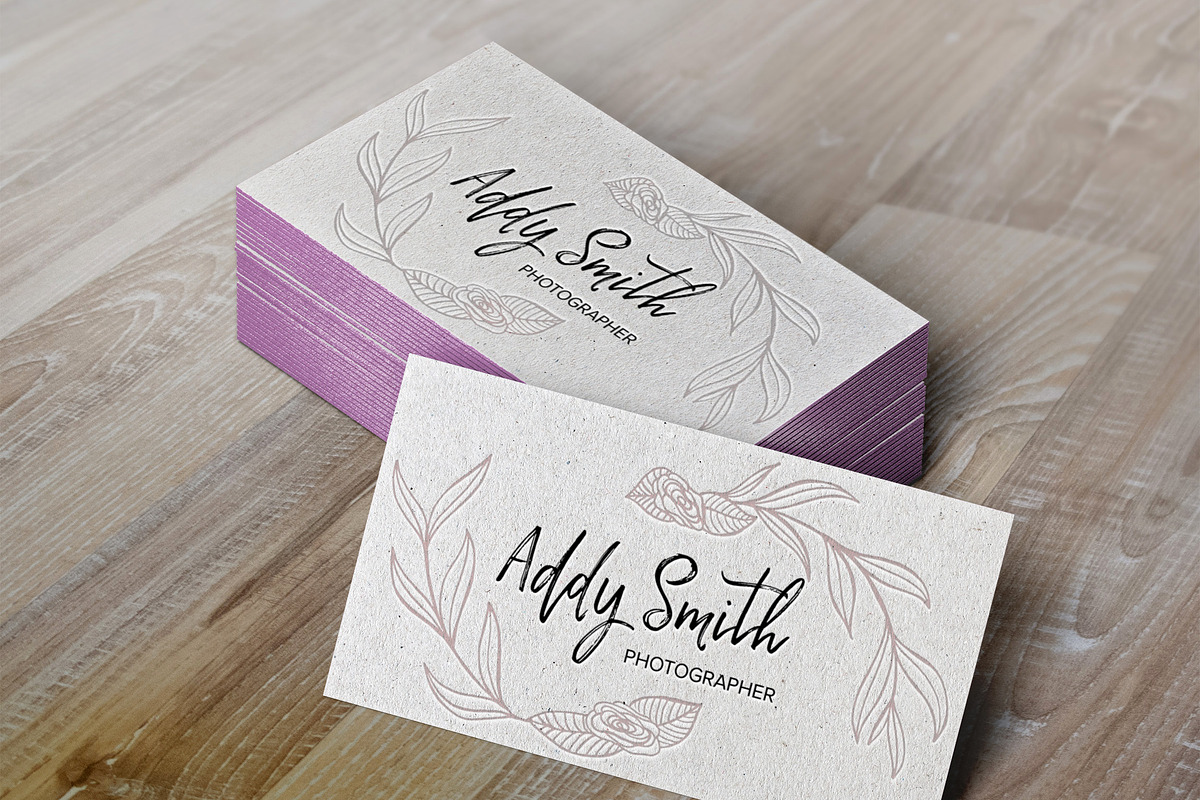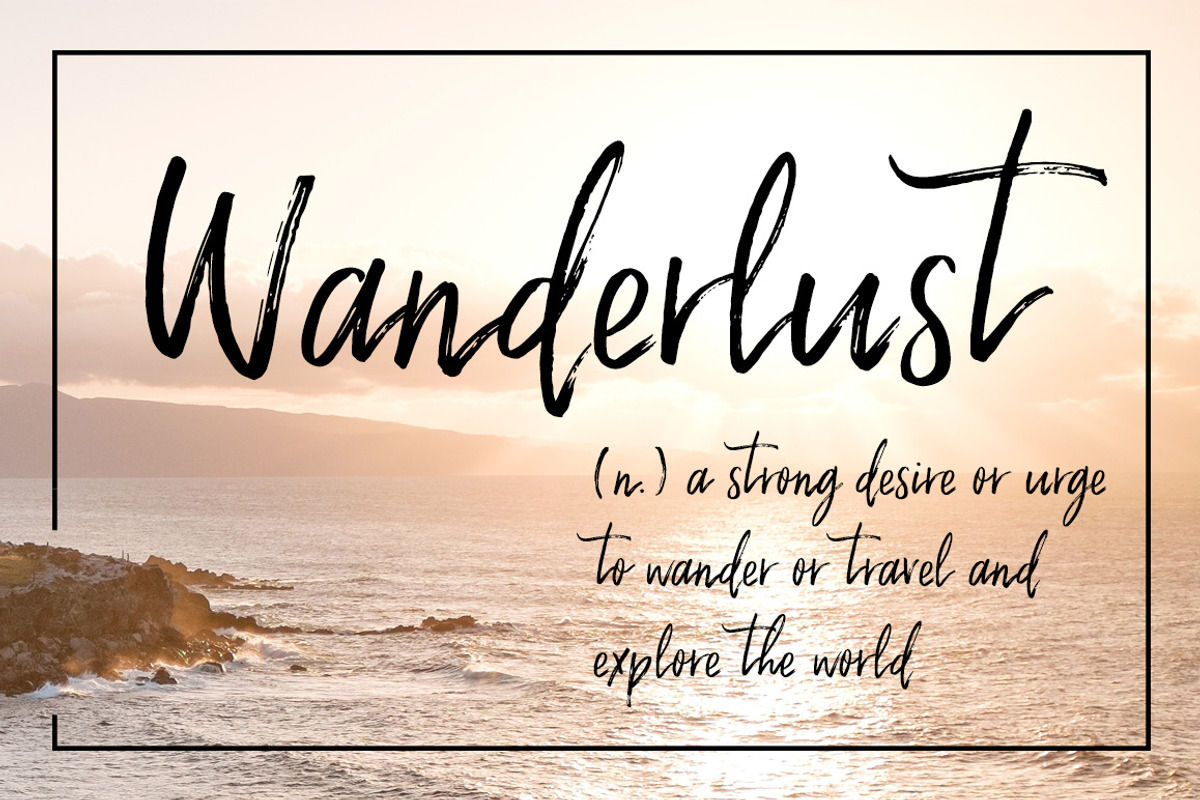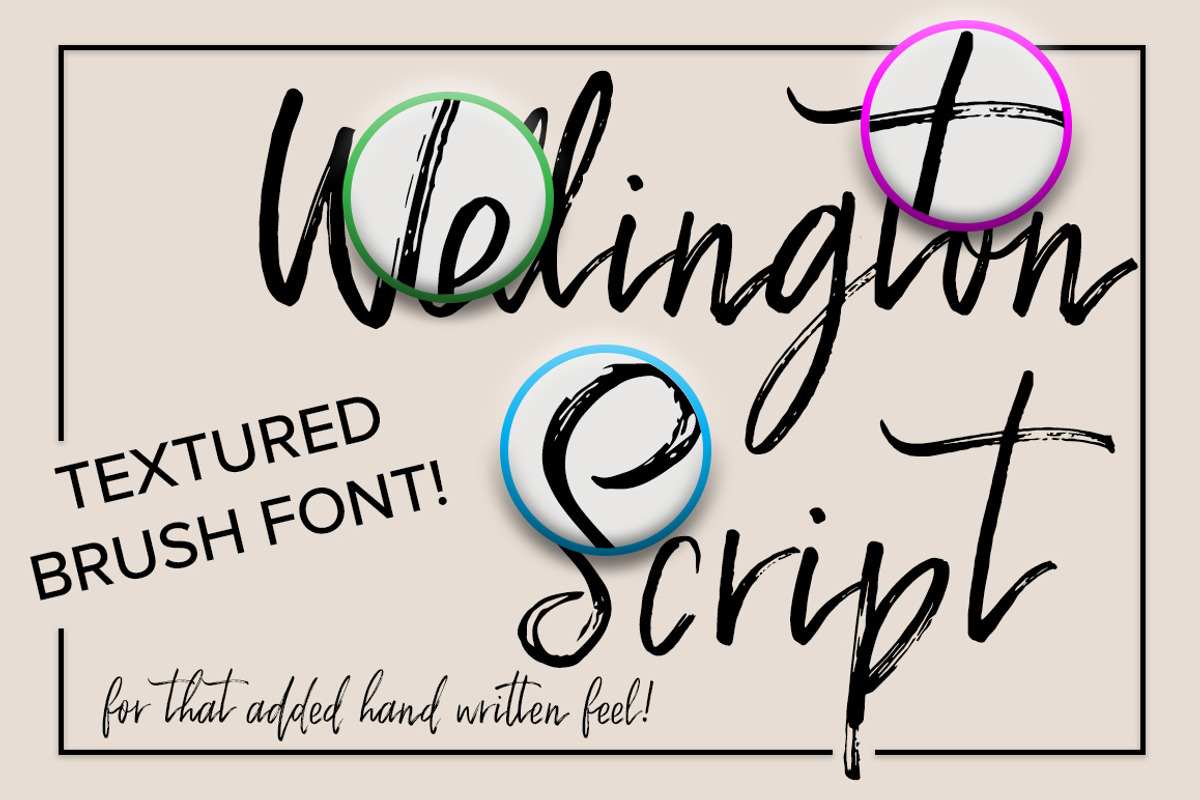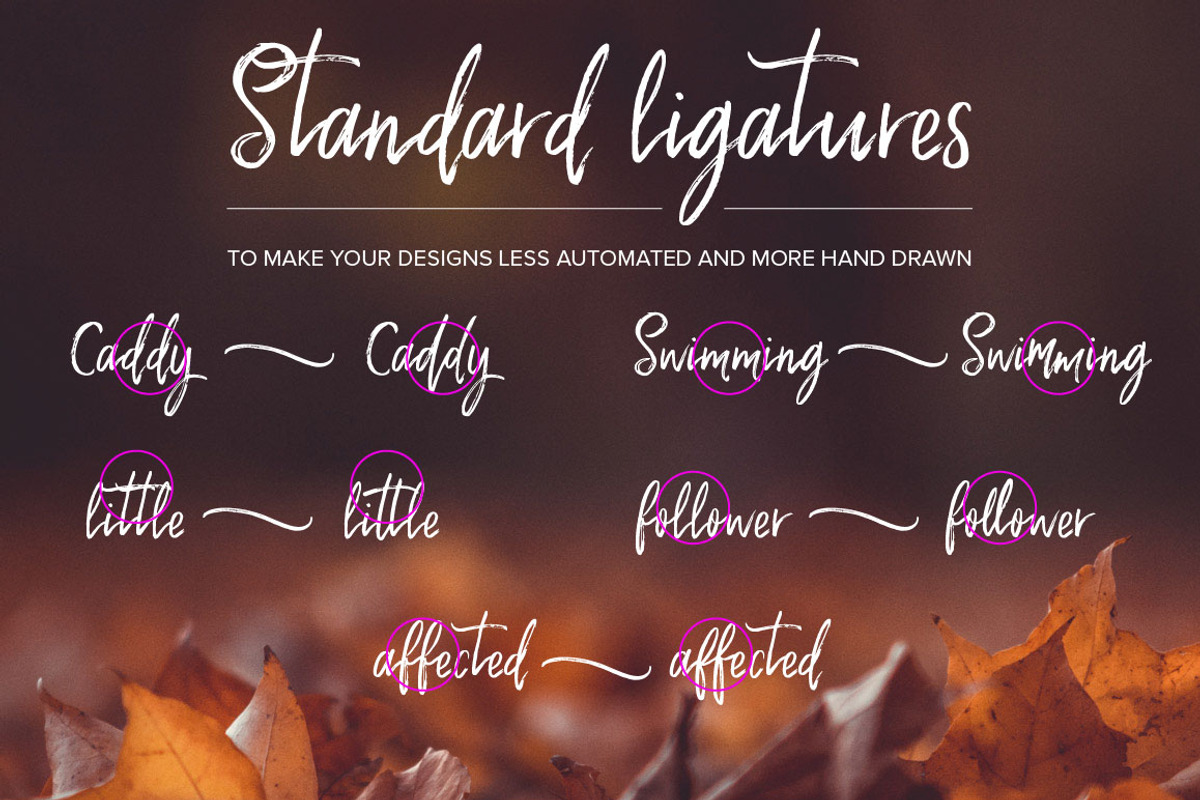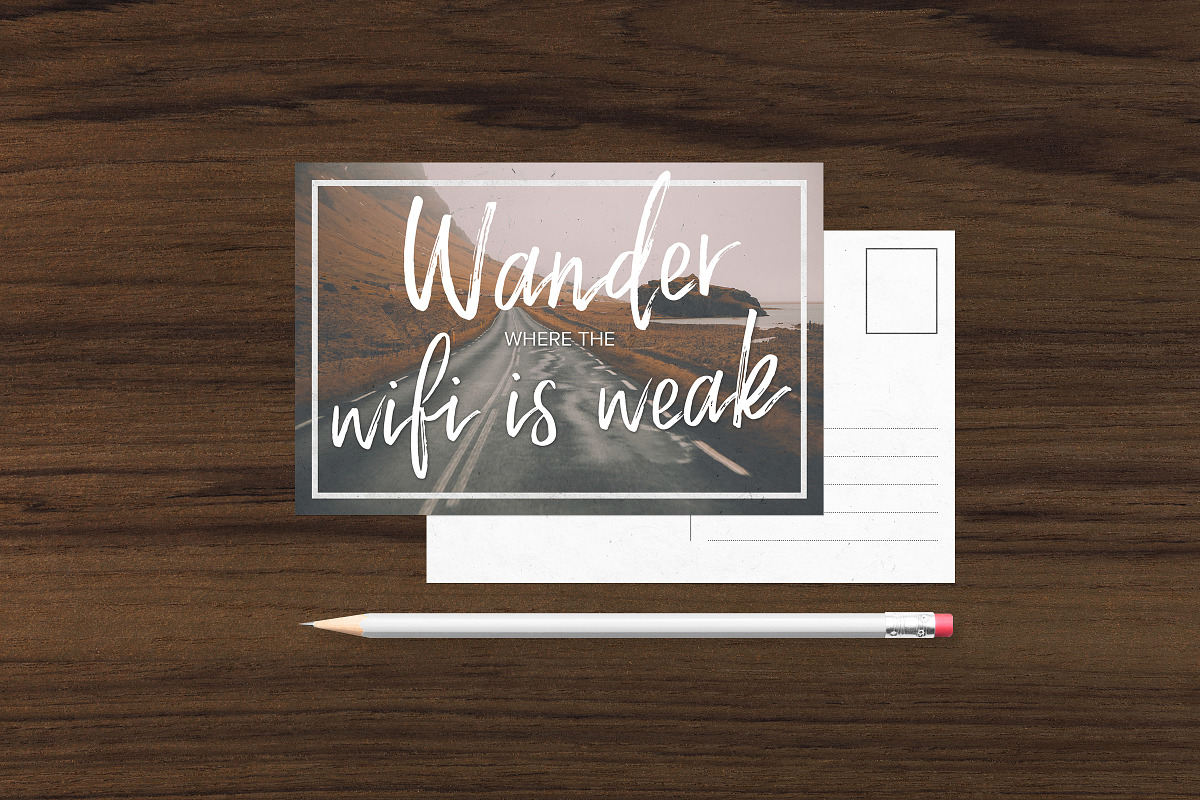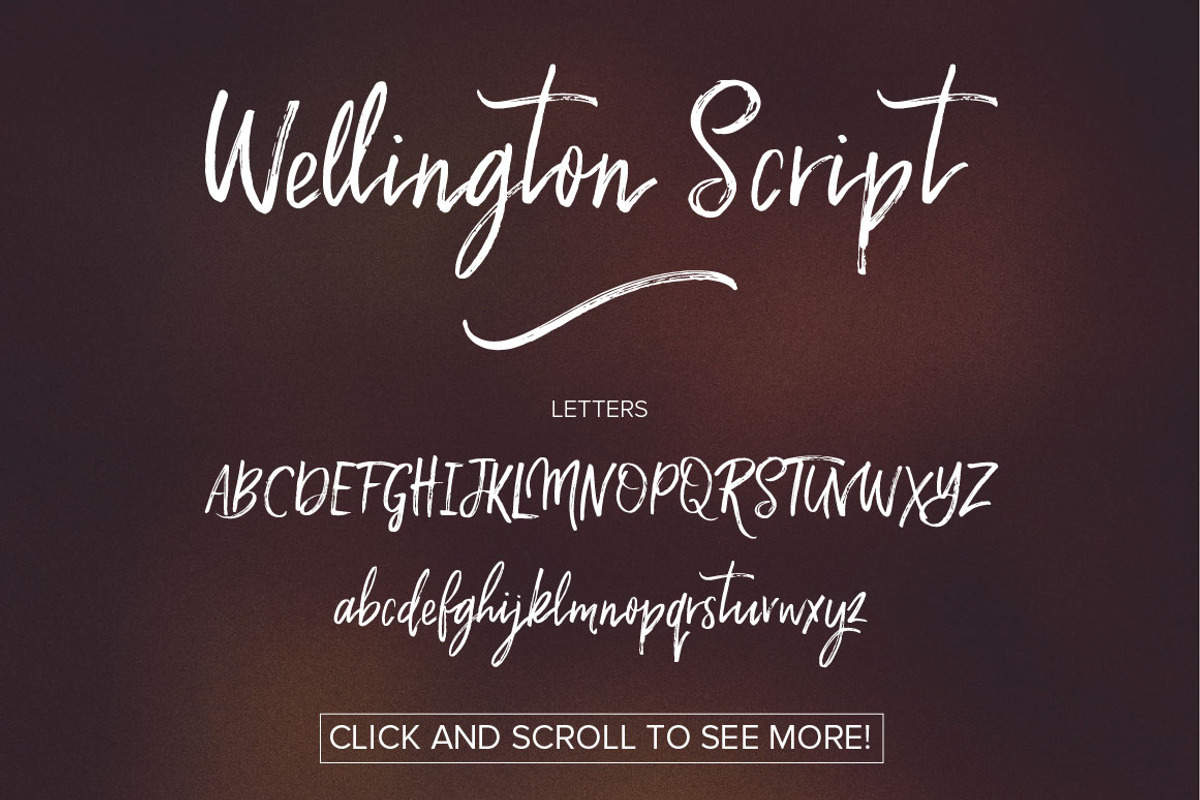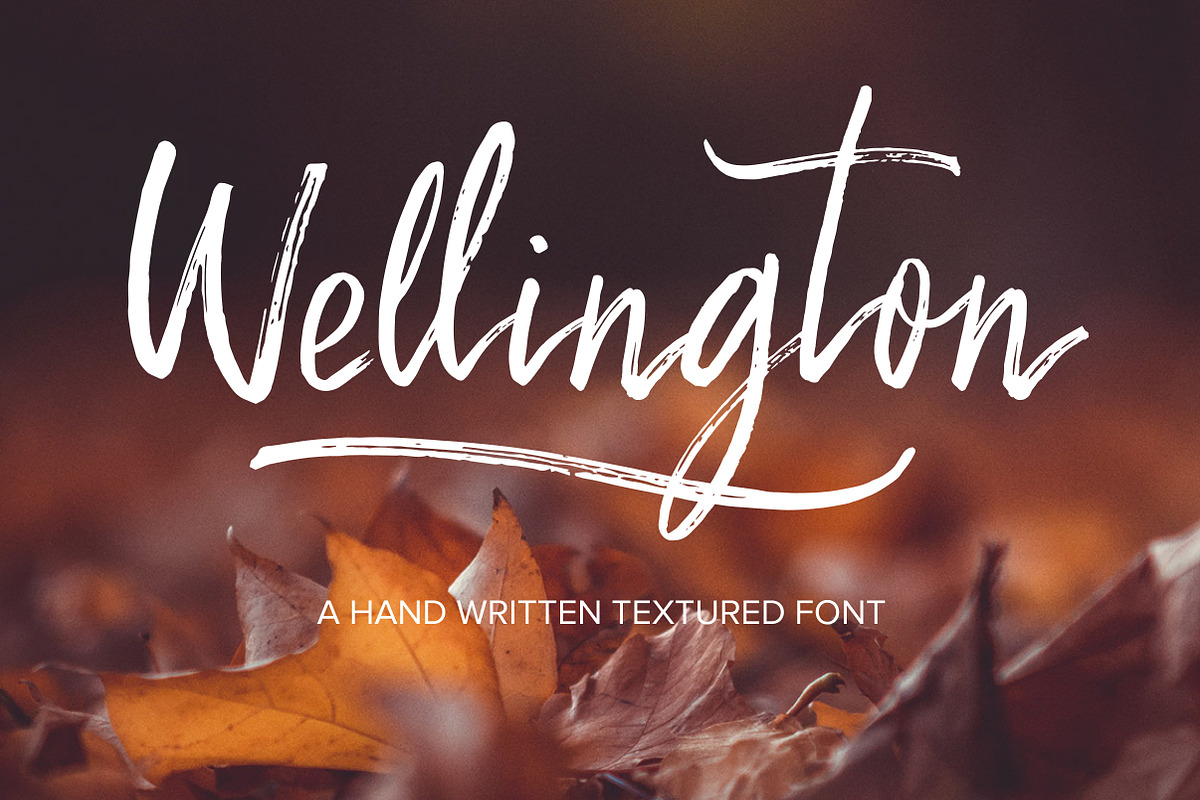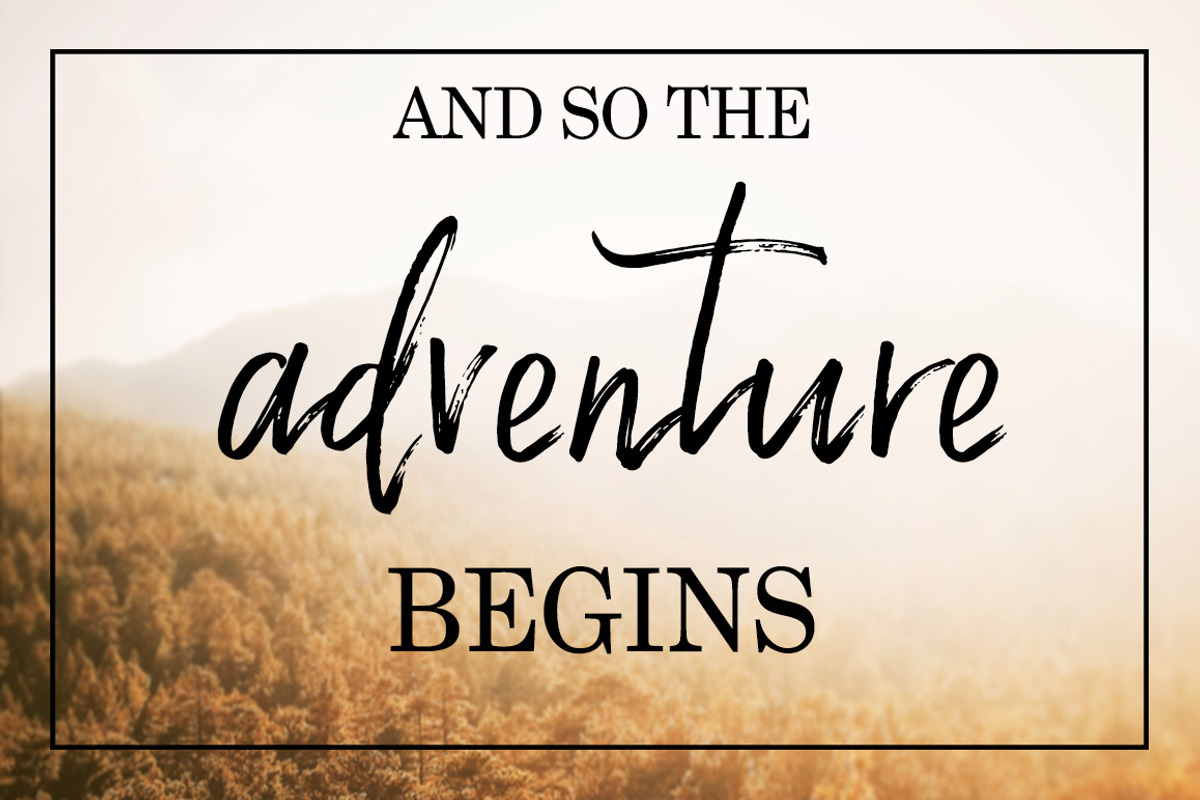
Wellington Script Font
Wellington is a new, textured dry brush script font designed to give your work that rough and ready hand written look. Equipped with ligatures for double letters, mulitlingual support and a bonus free swash font, Wellington is the 'perfectly imperfect' font for your next project :)
uppercase, lowercase, numbers
multilingual support inlcluding: Western European, Central European and South Eastern European languages
Wellington Swashes and Hearts Font
Wellington Script Font by Anna Freya fits naturally into Branding, posters, packaging, typography.